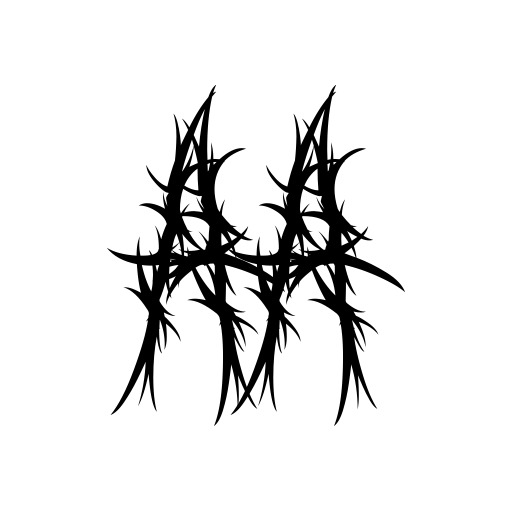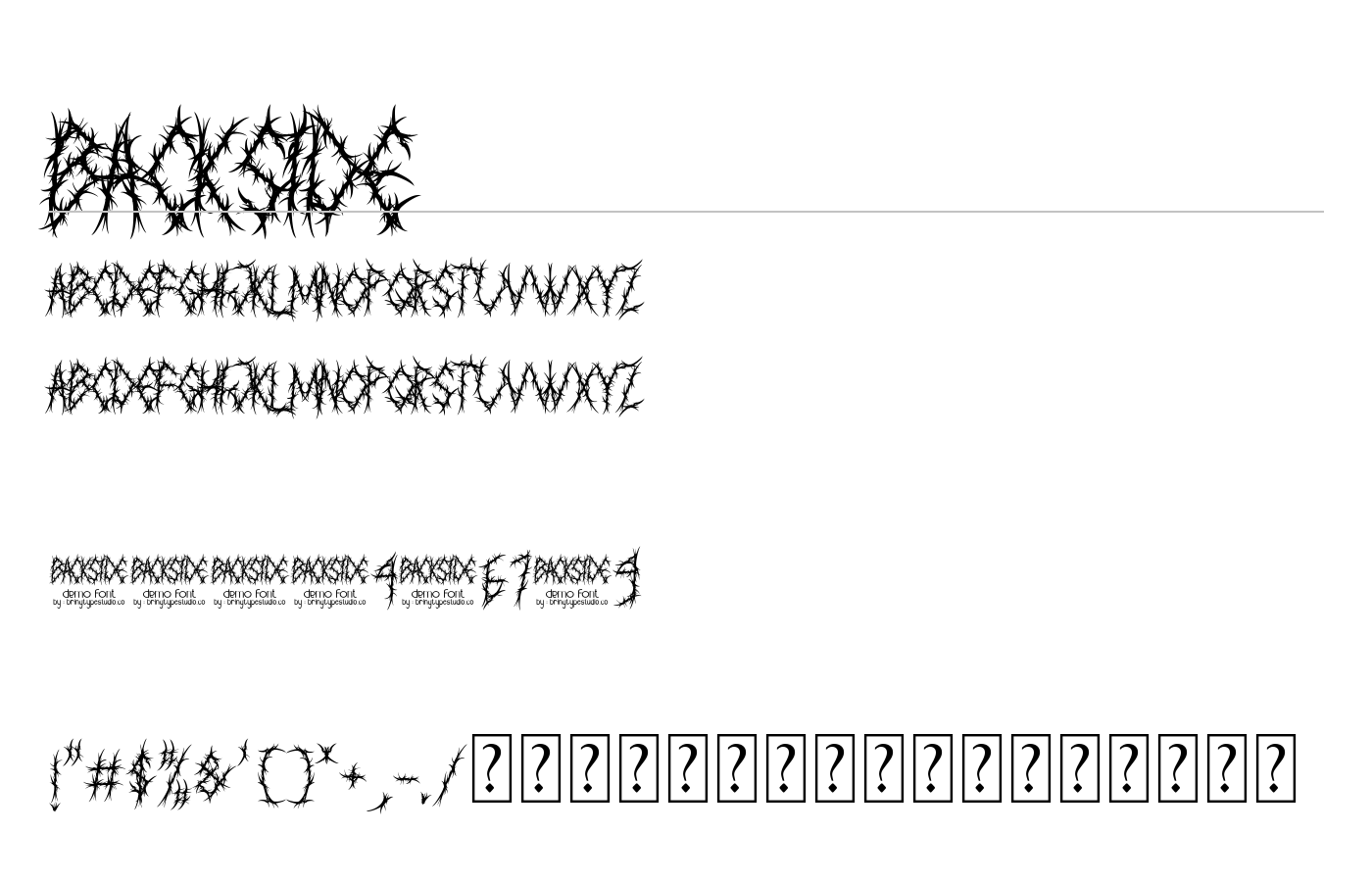
BACKSIDE is a highly stylized, decorative font featuring sharp, thorn-like strokes that create a bold and edgy appearance. Its irregular, jagged forms give it a dark, almost gothic personality, making it ideal for designs that need an intense, rebellious, or horror-themed vibe. This font works best in large-scale headline use, posters, or branding where a striking, unconventional look is needed to grab attention.
BACKSIDE Font
About BACKSIDE Font